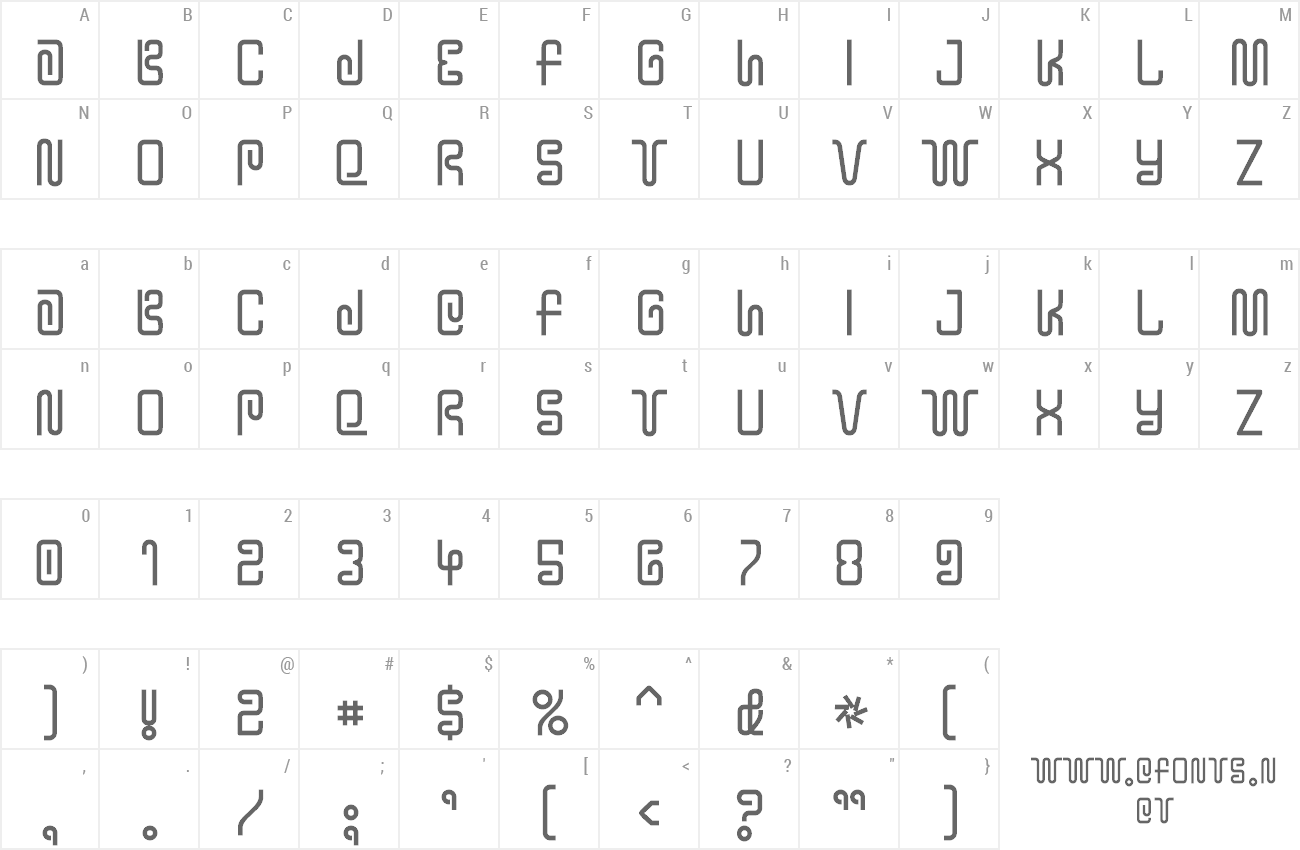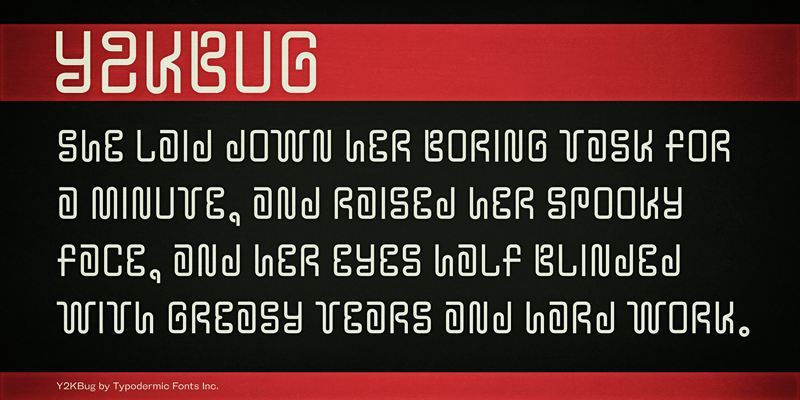
Y2Kbug is a wormular techno font which evokes feeling of designer jeans, carrots and corrugated cardboard. This font includes a license that allows free commercial use: sometimes referred to as a desktop license. This allows you to install the font on a computer and use it to create posters, web graphics, game graphics, t-shirts, videos, signs, logos and more. Read the license agreement for details. If you'd like to embed this font in an app, ebook, on the web or anything that's not covered by the desktop license agreement, visit the link below. You'll find distributors who offer different types of licenses or you can contact me for help. http://typodermicfonts.com/y2kbug/ |